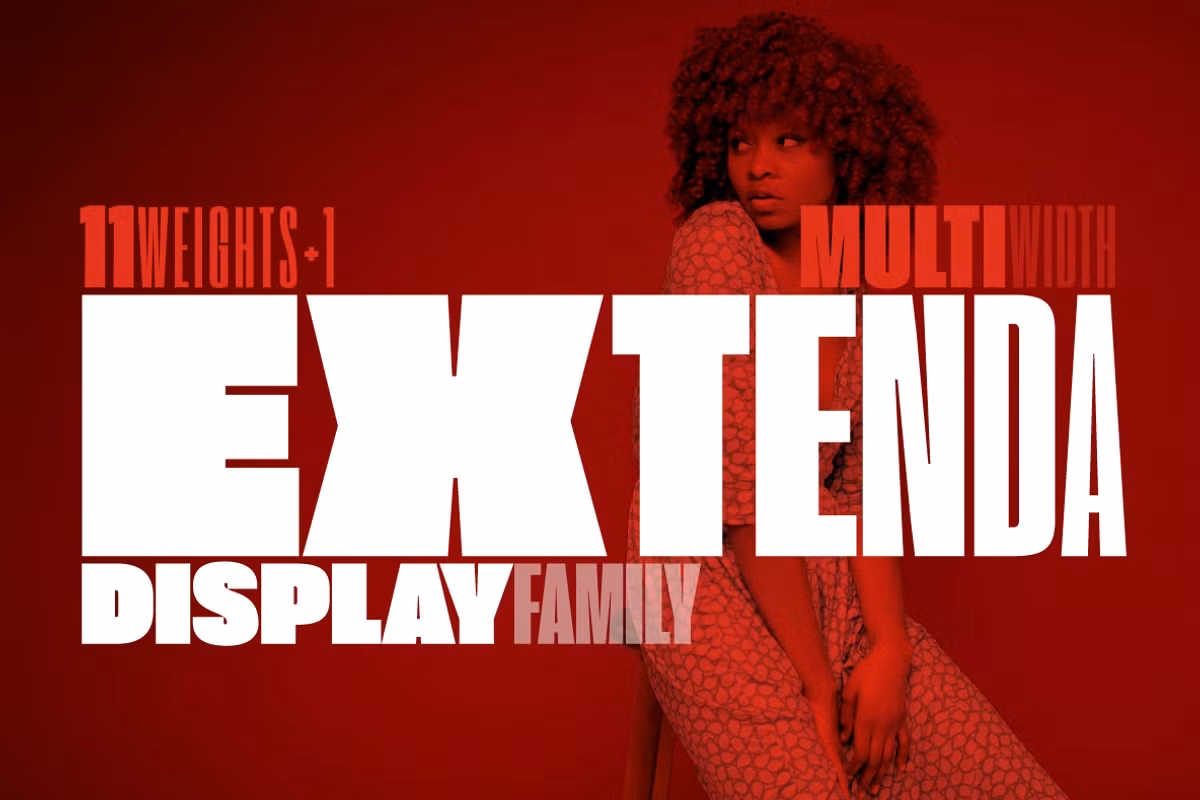
Extenda - 12 Fonts Free Download is an extensive font family that includes 12 versatile fonts, ranging from bold to light weights, with modern and clean letterforms. This typeface is perfect for a wide range of design projects, including branding, editorial work, websites, logos, and more.
With its wide range of weights and styles, Extenda offers flexibility and consistency for all types of design work. Whether you need a sleek, professional font for business materials or a friendly, approachable style for creative projects, this family has you covered.
Elevate your designs with the versatility and style of the Extenda Font Family!